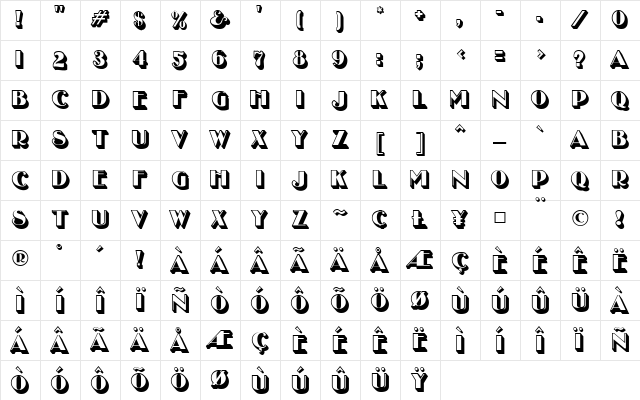
UncleBobMF-Shadow Regular
Design Context for UncleBobMF-Shadow Typeface
UncleBobMF-Shadow brings ornamental detail and strong personality to headlines and identities, where visual impact matters more than quiet functionality.
Font Pairing: Pair with a clean neutral sans-serif for body copy to let UncleBobMF-Shadow's character lead without overwhelming the composition.
Pro Tip: Use UncleBobMF-Shadow exclusively at display sizes — it was designed to be seen, not read at length. Let a neutral companion handle body copy.